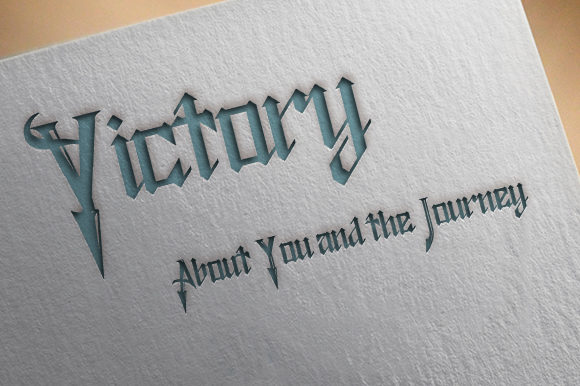
Introducing Bonchereth Font: A Striking Vintage Typeface for Your Creative Projects
Are you a designer or crafter looking for a unique and eye-catching font to add a touch of vintage charm to your designs? Look no further than the Bonchereth Font! This stunning typeface boasts an ornamental style that’s sure to elevate your vintage-themed designs, logos, headlines, letterheads, and more.
The Unique Characteristics of Bonchereth Font
The Bonchereth Font is a one-of-a-kind typeface that exudes a sense of nostalgia and sophistication. Its distinctive vintage style is characterized by intricate details, ornate flourishes, and a classic aesthetic that’s reminiscent of a bygone era. Whether you’re working on a logo, brochure, or website, this font is sure to add a touch of elegance and refinement to your design.
What Makes Bonchereth Font So Versatile?
One of the standout features of the Bonchereth Font is its incredible versatility. This font can be used for a wide range of creative projects, from:
- Vintage-themed designs: Add a touch of nostalgia to your designs with this beautiful font.
- Logos: Create a lasting impression with a custom logo that showcases your brand’s personality.
- Headlines: Grab attention with bold, eye-catching headlines that demand to be noticed.
- Letterheads: Elevate your stationery with a sophisticated font that’s sure to impress.
- And much more: The Bonchereth Font is perfect for any project that requires a touch of vintage charm.
Why Choose Bonchereth Font for Your Design Projects?
So why choose the Bonchereth Font for your design projects? Here are just a few compelling reasons:
- Unique style: The Bonchereth Font boasts a truly unique style that’s sure to set your designs apart from the crowd.
- Elegant aesthetic: This font exudes a sense of sophistication and refinement, making it perfect for high-end designs.
- Highly versatile: The Bonchereth Font can be used for a wide range of creative projects, from logos to letterheads and more.
Tips for Using Bonchereth Font in Your Designs
To get the most out of the Bonchereth Font, here are a few tips to keep in mind:
- Use it sparingly: While the Bonchereth Font is beautiful, it’s best used sparingly to avoid overwhelming your design.
- Pair it with complementary fonts: Experiment with pairing the Bonchereth Font with complementary fonts to create a unique and visually appealing design.
- Experiment with different sizes and colors: Don’t be afraid to experiment with different sizes and colors to find the perfect combination for your design.
In conclusion, the Bonchereth Font is a stunning vintage typeface that’s sure to add a touch of elegance and sophistication to your design projects. With its unique style, elegant aesthetic, and high versatility, this font is perfect for designers and crafters looking to create beautiful, eye-catching designs. So why wait? Download the Bonchereth Font today and start creating stunning designs that demand to be noticed!